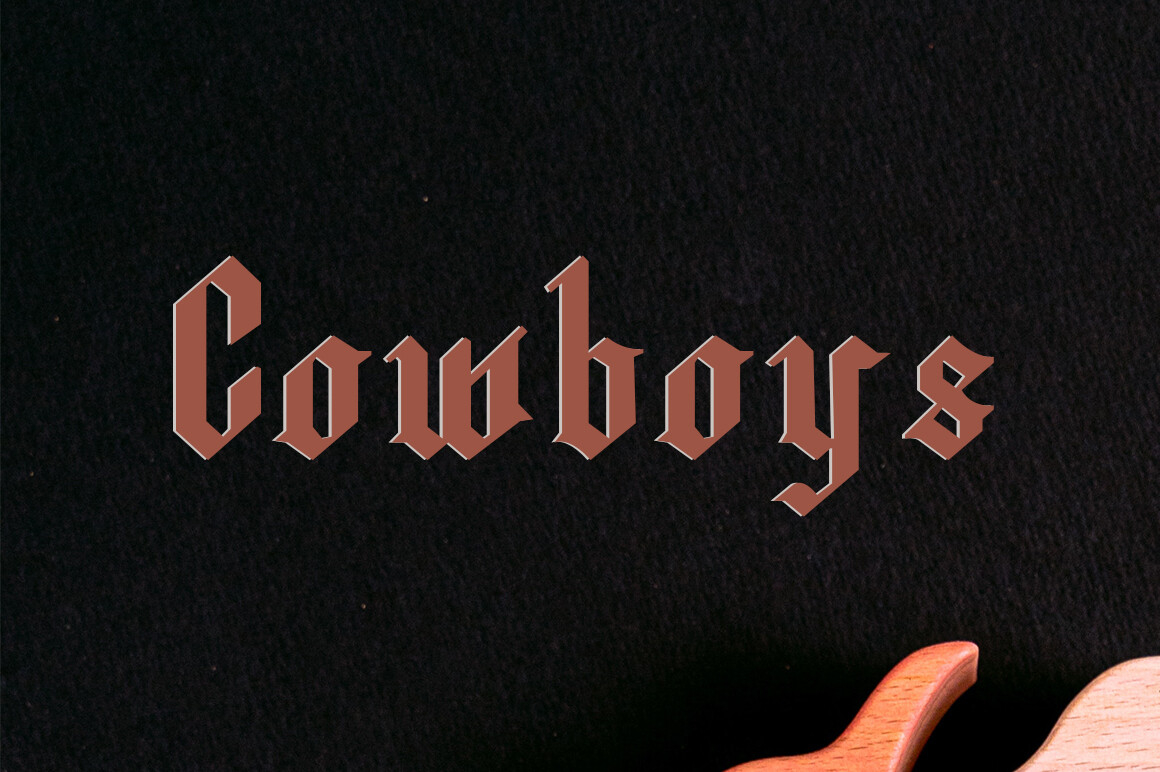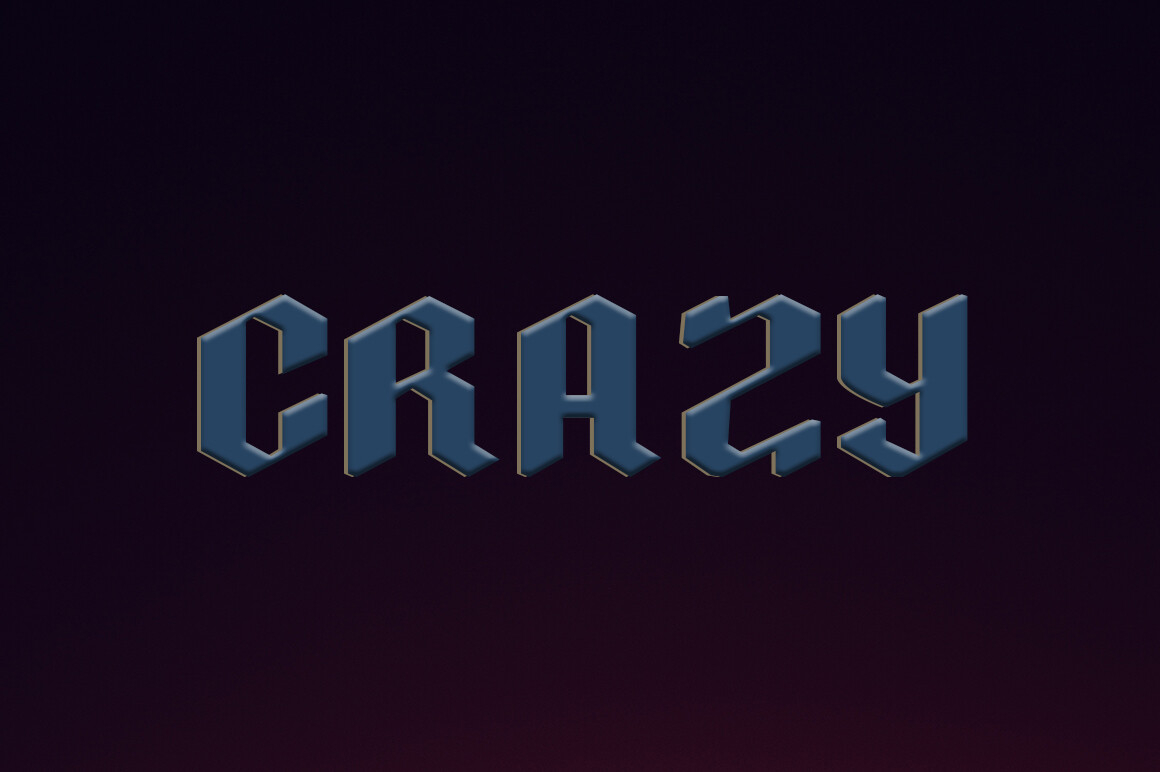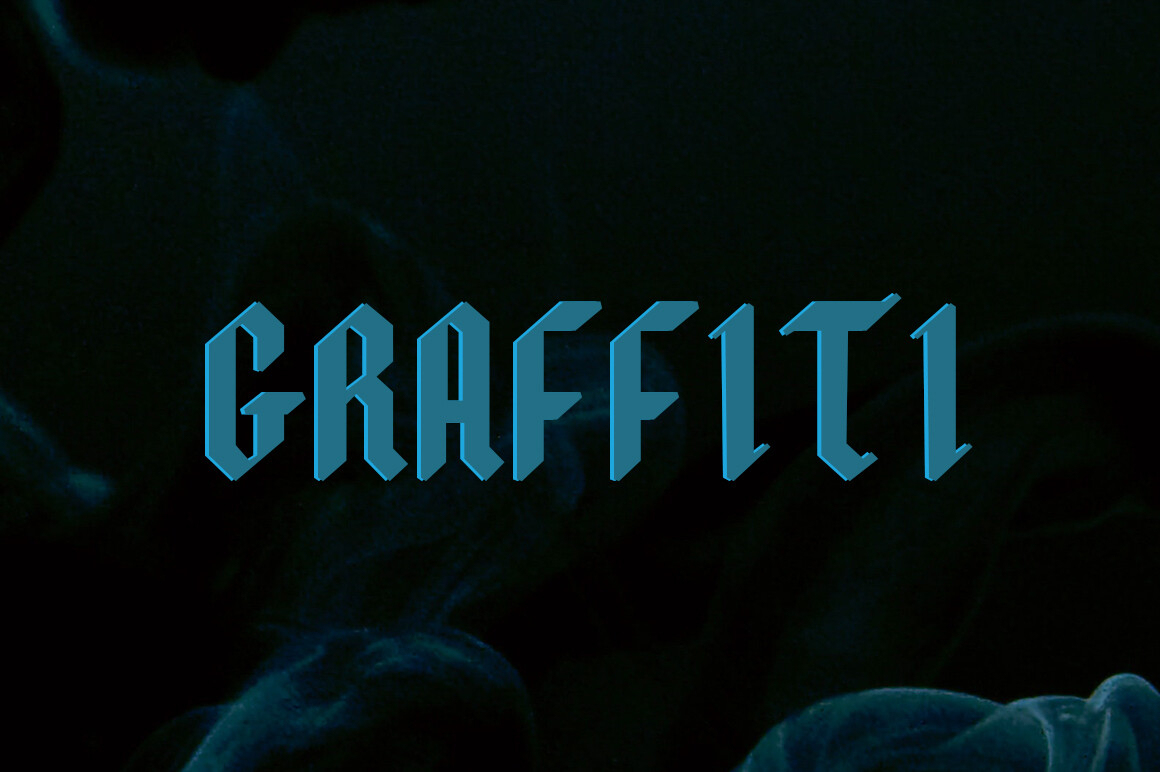
Cowboys Font
About Cowboys Font
Cowboys is an graffiti font characterized by a bold look. It is ieal for music posters, apparel designs, shirts, and streetwea. This font brings a touch of edginess to your projects. Whether you want to create a strong and powerful statement or simply add a touch of attitude to your designs, Cowboys is the font for you.